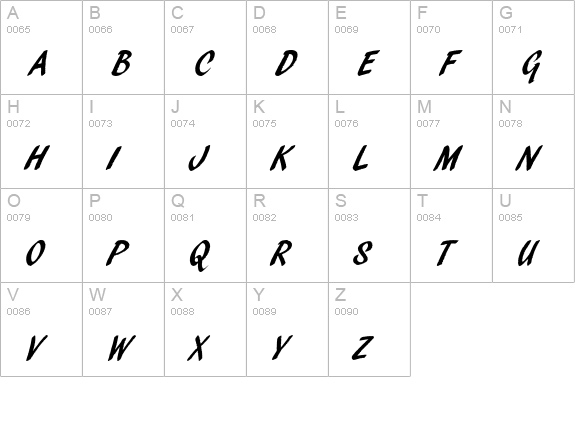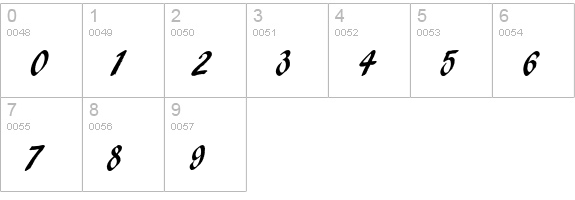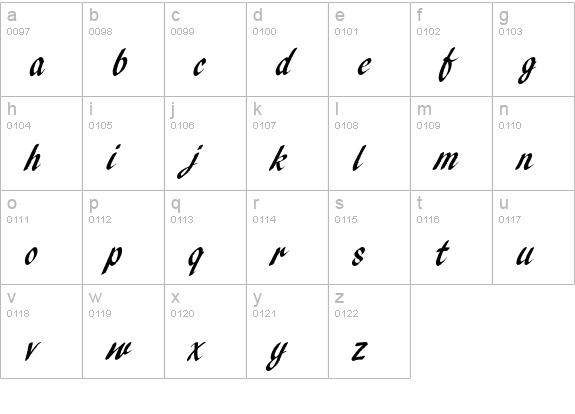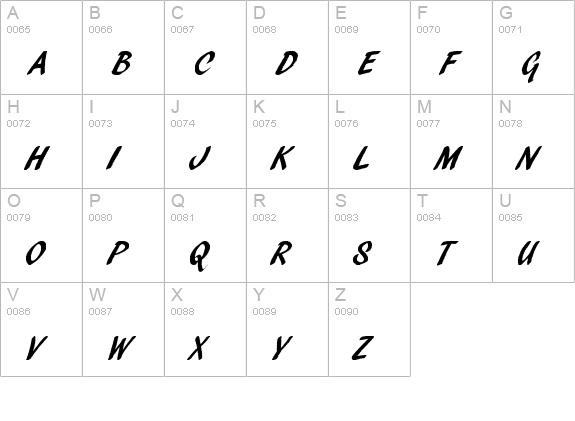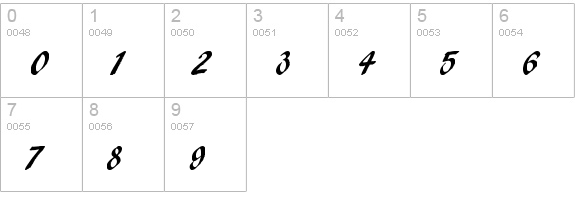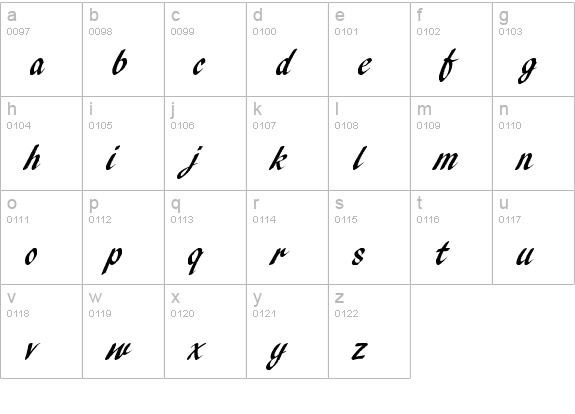
Pendry Script Std font is a stunningly elegant and versatile typeface that will bring a touch of sophistication to any design project. With its beautifully flowing curves and delicate strokes, this font captures the essence of classic script typography, making it perfect for invitations, wedding stationery, logos, and more. What sets Pendry Script Std font apart from other script fonts is its seamless blend of traditional calligraphy with a contemporary twist. The letters effortlessly connect to create a smooth and cohesive look, while still maintaining legibility and readability. Designed with meticulous attention to detail, Pendry Script Std font offers a wide range of stylistic alternates, ligatures, and swashes, giving you unlimited possibilities to customize and enhance your designs. Whether you want to add a subtle flourish or make a bold statement, this font has the versatility to adapt to any creative vision. And the best part? Pendry Script Std font is free! That's right, you can download this exquisite font at FontsMarket.com, one of the leading resources for high-quality fonts. With just a few clicks, you can have access to this beautiful typeface and start elevating your designs to new heights. So why wait? Experience the beauty and elegance of Pendry Script Std font today and see how it can transform your projects into works of art. Download it for free at FontsMarket.com and unleash your creativity like never before.